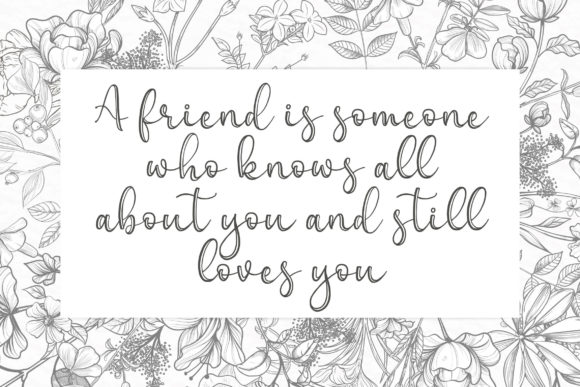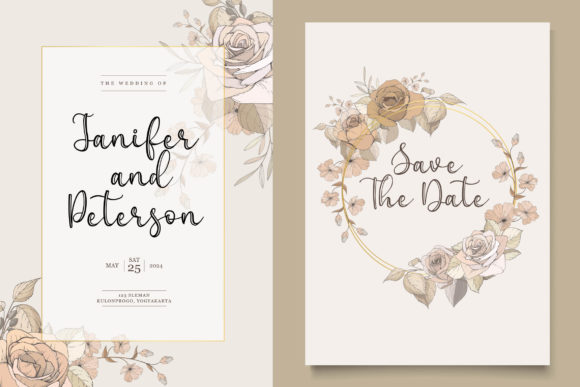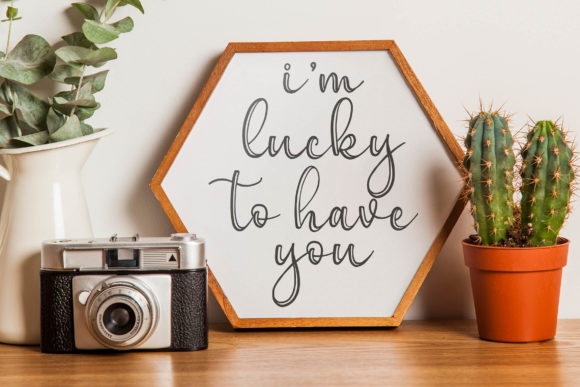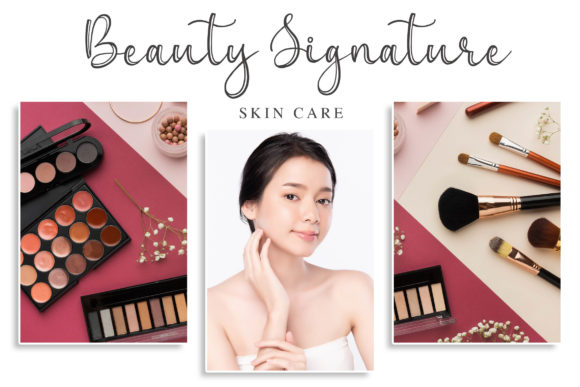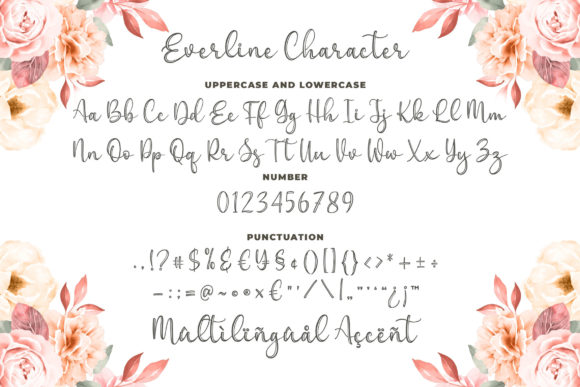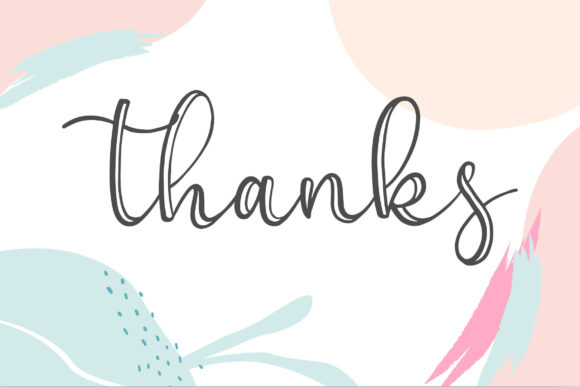
Introduction to Everline Font
Everline is a sweet, round lettered handwritten font.
Key Features of Everline Font
Why Choose Everline Font?
Everline Font offers exceptional quality and versatility, making it a valuable addition to your design toolkit. Whether you’re creating for personal projects or commercial use, Everline Font delivers professional results.